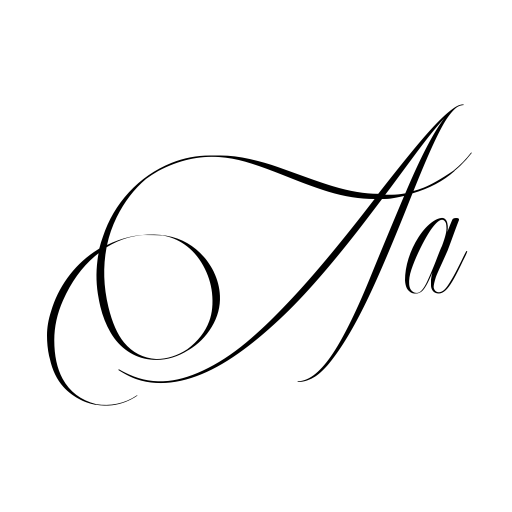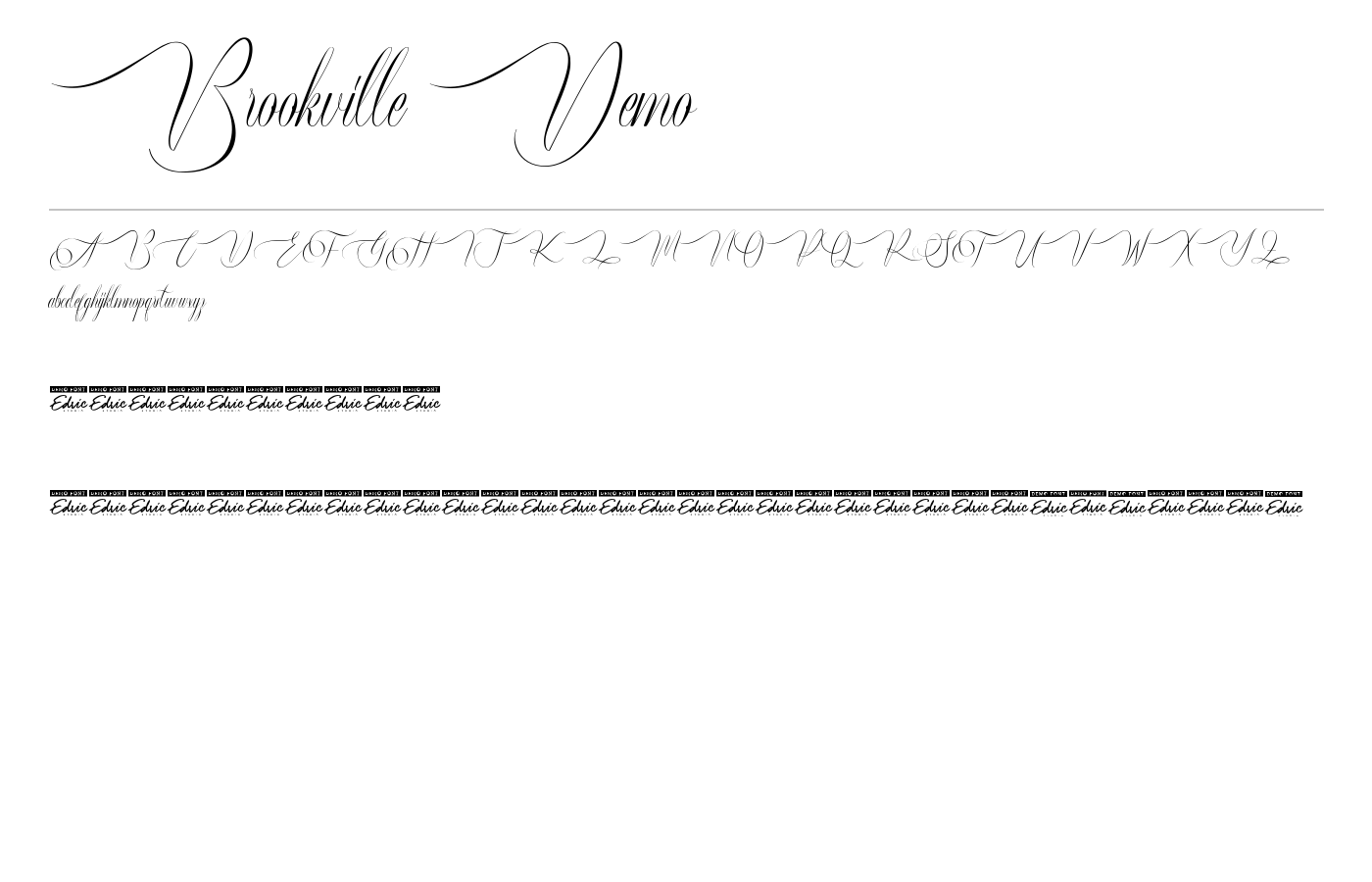
Brookville Demo is an elegant, delicate script font featuring fine, flowing strokes with high contrast and graceful flourishes. Its tall, slender letterforms and intricate swashes give it a luxurious, sophisticated feel, perfect for upscale branding, wedding invitations, or refined editorial design where a touch of classic elegance is desired. This font works best in large display sizes due to its intricate details and airy style.
Brookville Demo Font
About Brookville Demo Font